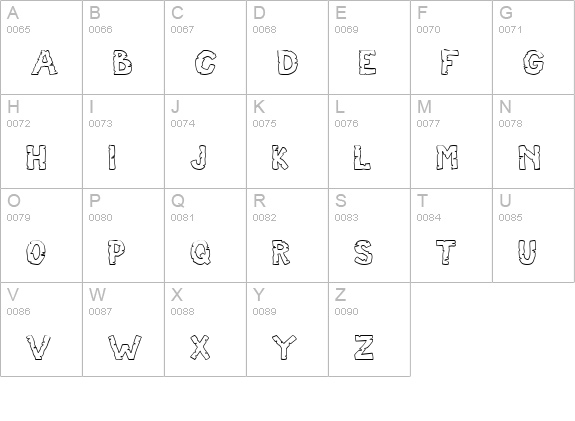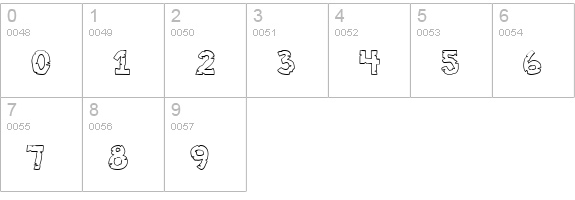
CK Cracked Font Details
CK Cracked font is a beautifully designed typeface that exudes a unique charm with its cracked and distressed appearance. This font adds a touch of edginess and character to any project it is used in, making it perfect for designs that need a rugged or vintage feel. The rough texture of the letters gives off a sense of authenticity and history, making it a great choice for posters, logos, album covers, and more. What's even better is that CK Cracked font is available for free download at FontsMarket.com. This means that you can easily access this stylish font without any cost, allowing you to use it in your personal or commercial projects without breaking the bank. Don't miss out on the opportunity to add CK Cracked font to your collection and take your designs to the next level with its distinctive and eye-catching style.